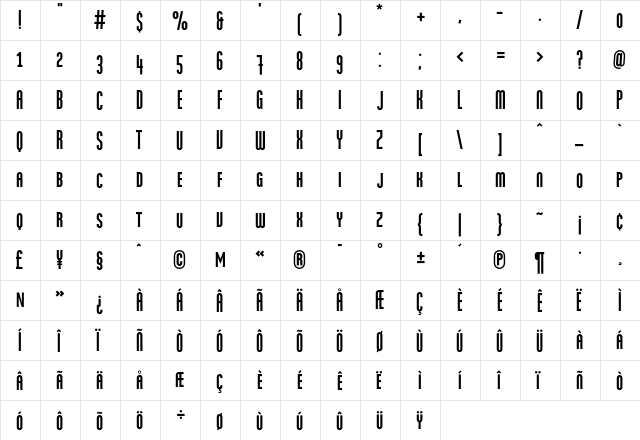
Marten GrotesqueCaps
Design Context for Marten Typeface
Marten takes a measured approach to typography — its balanced proportions and neutral character make it a reliable workhorse for both digital and print work.